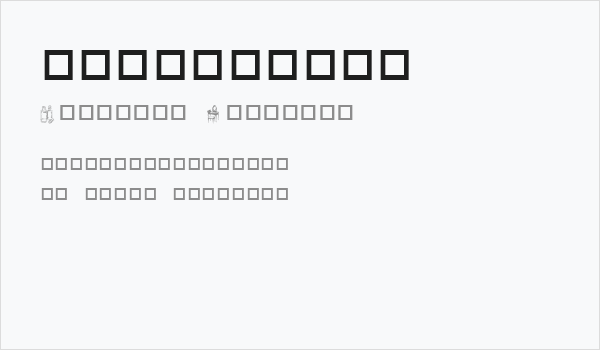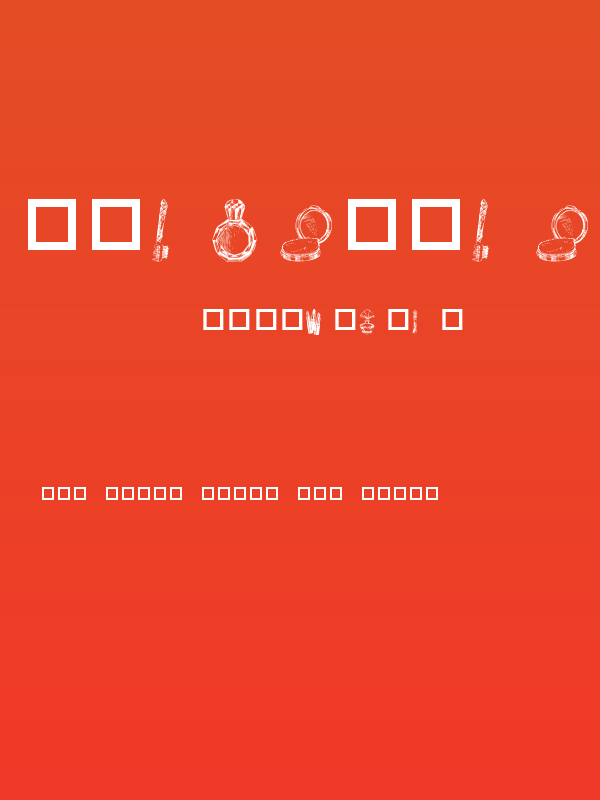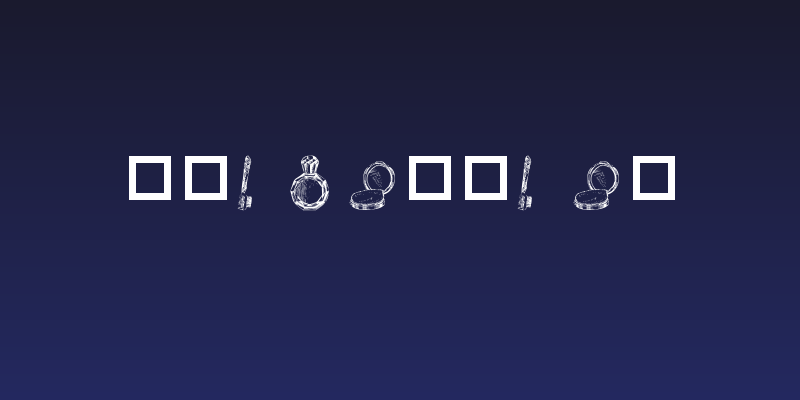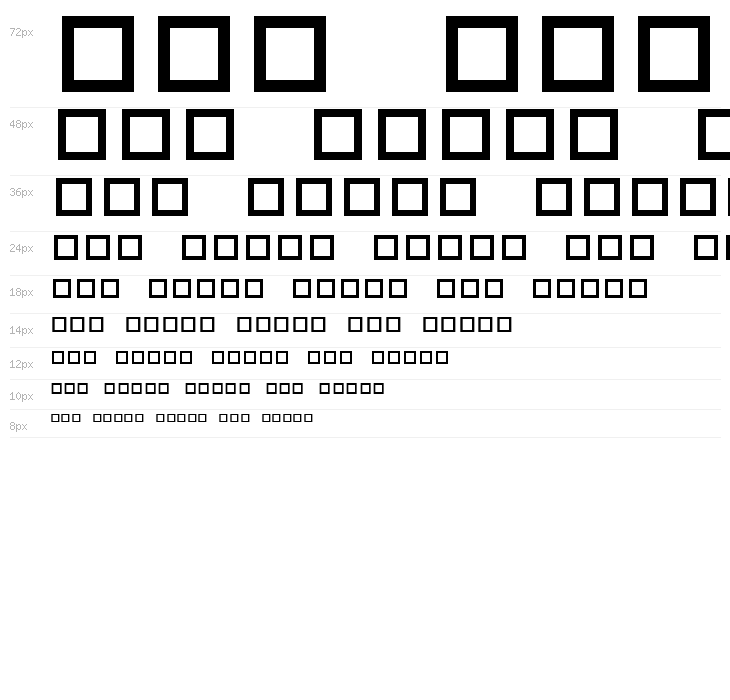
Toiletries Font
Toiletries Description
A decorative font consisting of detailed, hand-drawn illustrations of various toiletries and cosmetic items such as perfume bottles, makeup brushes, lipstick, mirrors, and powder compacts. The font uses pictorial symbols instead of traditional alphanumeric characters.
| Overall Style | Vintage, illustrative |
| Use Case | Logos, headlines, decorative elements, thematic design projects |
| Proposed Projects | Beauty and cosmetic branding, packaging design, spa and salon promotional materials, themed invitations, and decorative accents in fashion-related projects. |